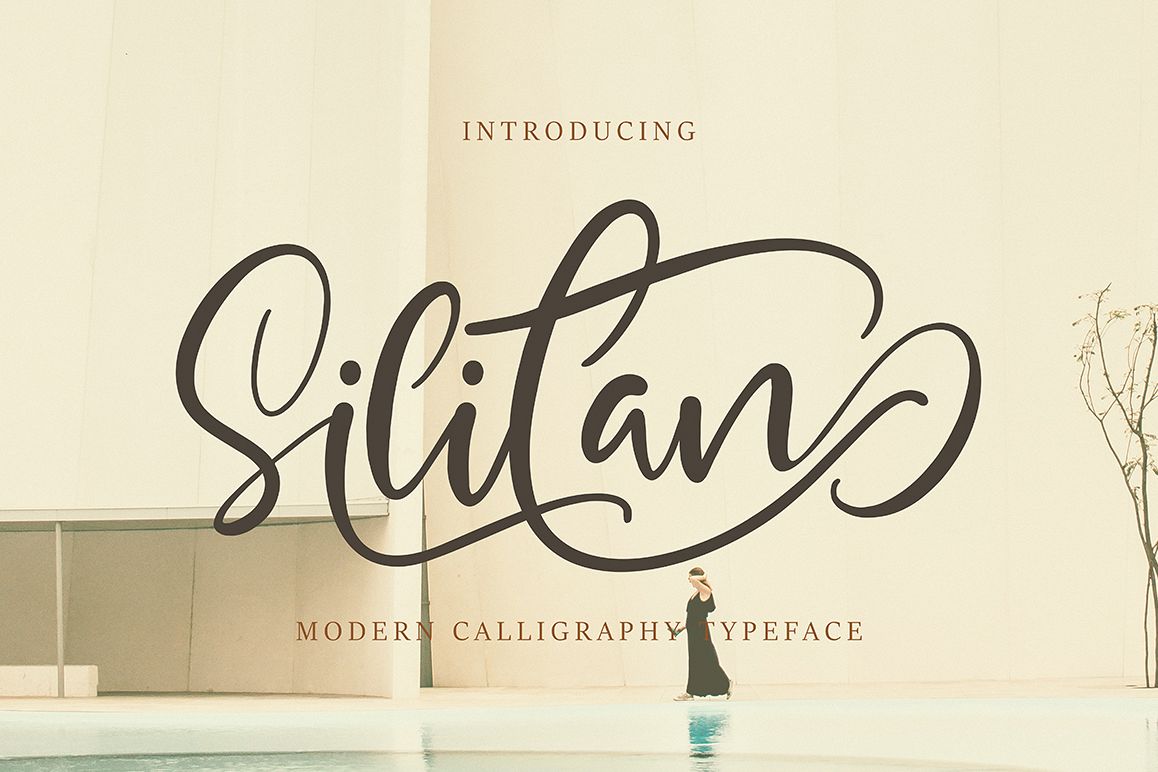
Silitan
Silitan-Regular
Silitan script font with modern style, this font will perfect for many different project ex: quotes, logo, blog header, poster, banding, fashion, apparel, letter, invitation, stationery, etc...
Silitan